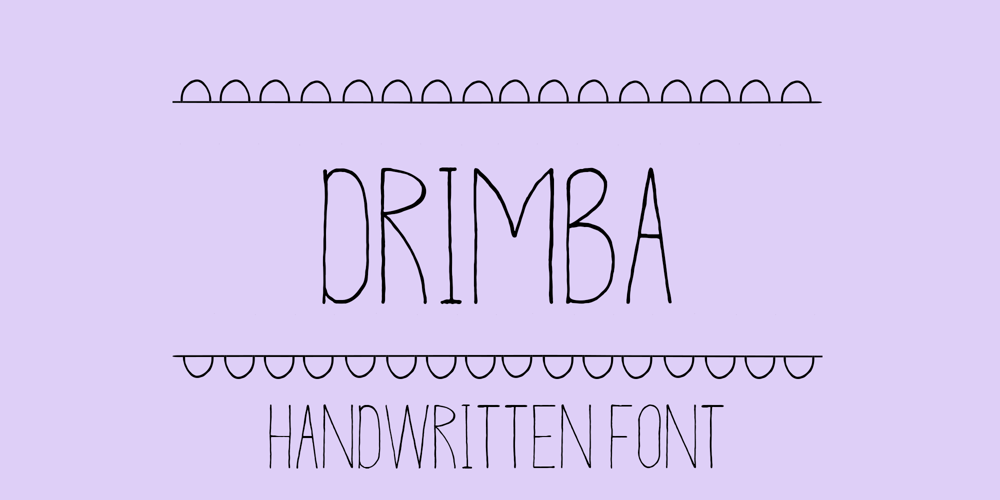
Drimba
Drimba font
Drimba Font Family was designed by Andrew Tomson and published by Andrew Tomson. Drimba contains 2 styles and family package options. Hey, friends!How often do you share your social media posts? Modern man is already so used to them that he shares his emotions and feelings in them without hiding anything. We have begun to trust them. How to show a good mood? Of course, with a photo with a smile and a signature. This font is great for expressing your emotions.Good luck and love to you!